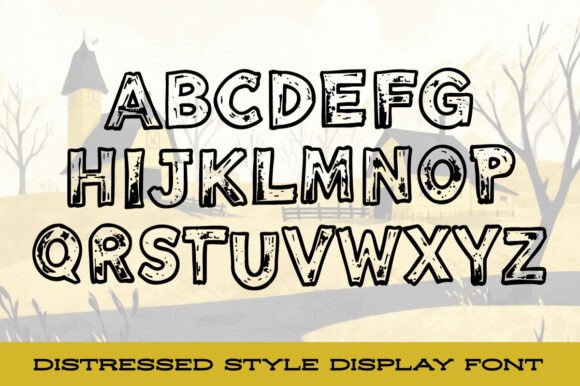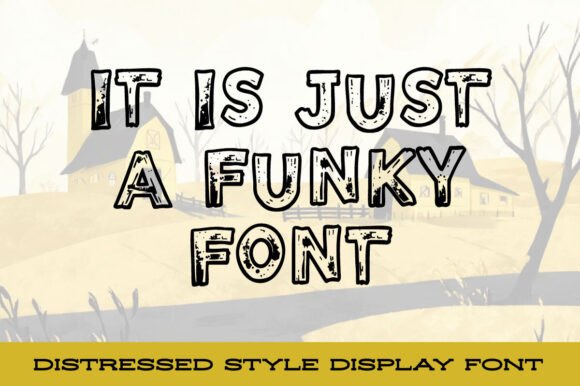
Introduction to Quirkform Font
Have you ever found yourself staring at a blank design canvas, struggling to bring your creative vision to life? We’ve all been there – the blank page staring back, taunting us with its emptiness. But what if you had a secret weapon to add a dash of personality to your design project? Enter the Quirkform Font, a high-quality, handcrafted outline font that’s about to revolutionize your creative process.
With its funky, weathered, and distressed appearance, the Quirkform Font is the perfect design resource for anyone looking to add a touch of whimsy and authenticity to their project. Whether you’re designing bold posters, quirky logos, or eye-catching headlines, this unique font is sure to add an extra layer of character. And the best part? It’s available for free download, making it an accessible and transparent background for your creative endeavors.
As a valuable addition to any designer’s toolkit, the Quirkform Font is sure to become your go-to resource for high-quality, creative projects. So why settle for ordinary when you can have extraordinary? Let the Quirkform Font be your ticket to design greatness.
Key Features of Quirkform Font
- High-quality font design with a unique, quirky aesthetic, perfect for creative projects that require a touch of whimsy.
- Includes a range of glyphs and characters, including international characters and symbols, to support diverse design needs.
- Designed to be highly legible, even at small font sizes, making it an ideal choice for creative projects that require a clear and concise typography.
Honest Review: Quirkform Font
I recently came across the Quirkform Font, and I must say it’s been a delightful addition to my design arsenal. As a designer, I’m always on the lookout for high-quality fonts that can elevate my creative projects to the next level.
One of the standout features of the Quirkform Font is its transparent background, which makes it incredibly versatile and easy to work with. Whether I’m designing a logo, brochure, or website, this font has been a consistent performer.
Here are some of the things that work well with the Quirkform Font:
- ✨ Unique and quirky style that adds a touch of personality to any design
- ✨ High-quality design that looks great on various screen sizes and resolutions
- ⚠️ Limited character set, which may require additional font combinations for more complex designs
- ⚠️ May not be suitable for very formal or traditional designs, due to its playful nature
Overall, I’m thoroughly impressed with the Quirkform Font. It’s a fantastic design resource that’s perfect for creative projects, and its free download makes it an excellent choice for designers of all levels.
The Quirkform Font is a high-quality, free design resource ideal for creative projects that require a unique touch. Its transparent background makes it easy to customize and combine with other design elements.
Tips for Getting the Most Out of Quirkform Font
To get the most out of Quirkform Font, use it in conjunction with other design elements, such as images and graphics. Experiment with different font sizes and colors to create a unique look.
Common Use Cases for Quirkform Font
Quirkform Font is ideal for creative projects, such as: